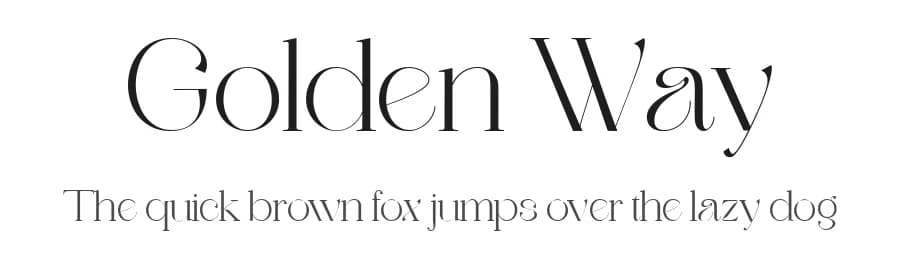
About Golden Way Font
| Designer | Teuku Fahruddin |
Golden Way Font is a versatile serif font that works for both headings and body text. Pair it with a contrasting sans-serif or slab serif font to add visual interest and a clear distinction between titles and body copy.
Golden Way Font